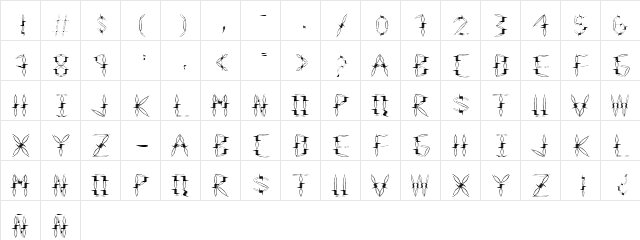
Complete Danger Type Regular glyph index. Displaying only characters natively supported by Danger Type Regular font.
Danger Type is a composed and adaptable typeface that performs quietly and consistently across a wide range of design contexts.